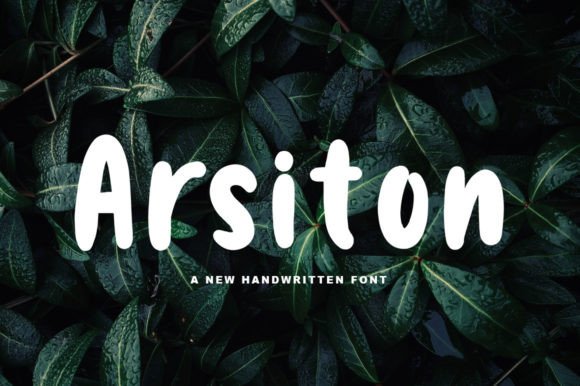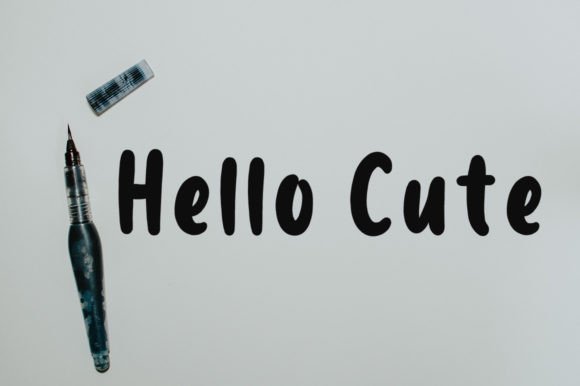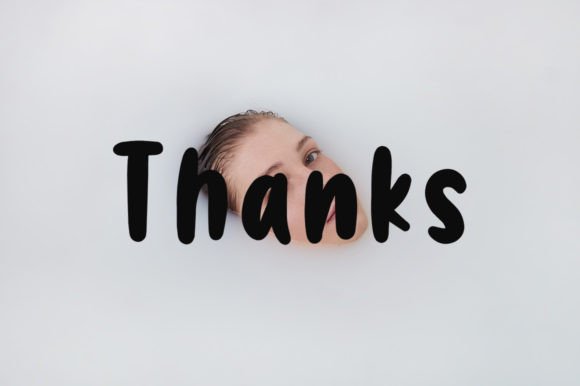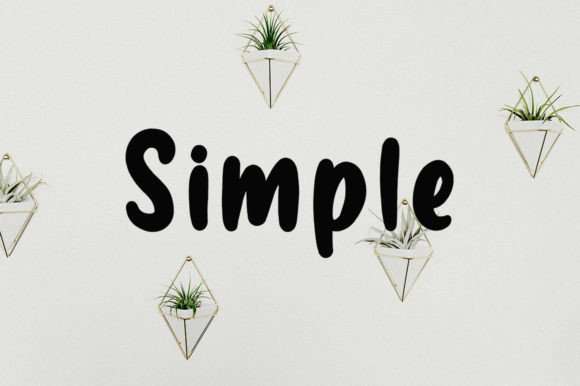
Arsiton
About Arsiton
Arsiton is a stylish and incredibly elegant handwritten font. It looks stunning on wedding invitations, thank you cards, quotes, greeting cards, logos, business cards, and every other design which needs a handwritten touch.